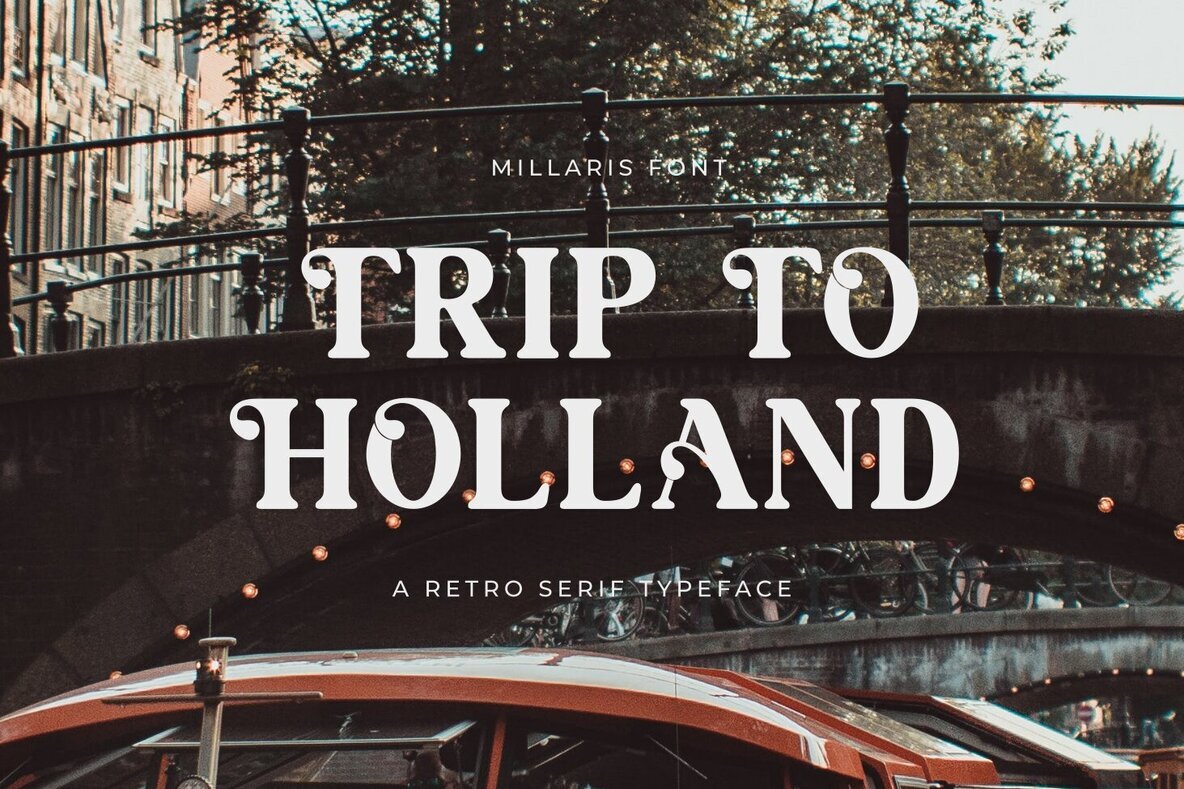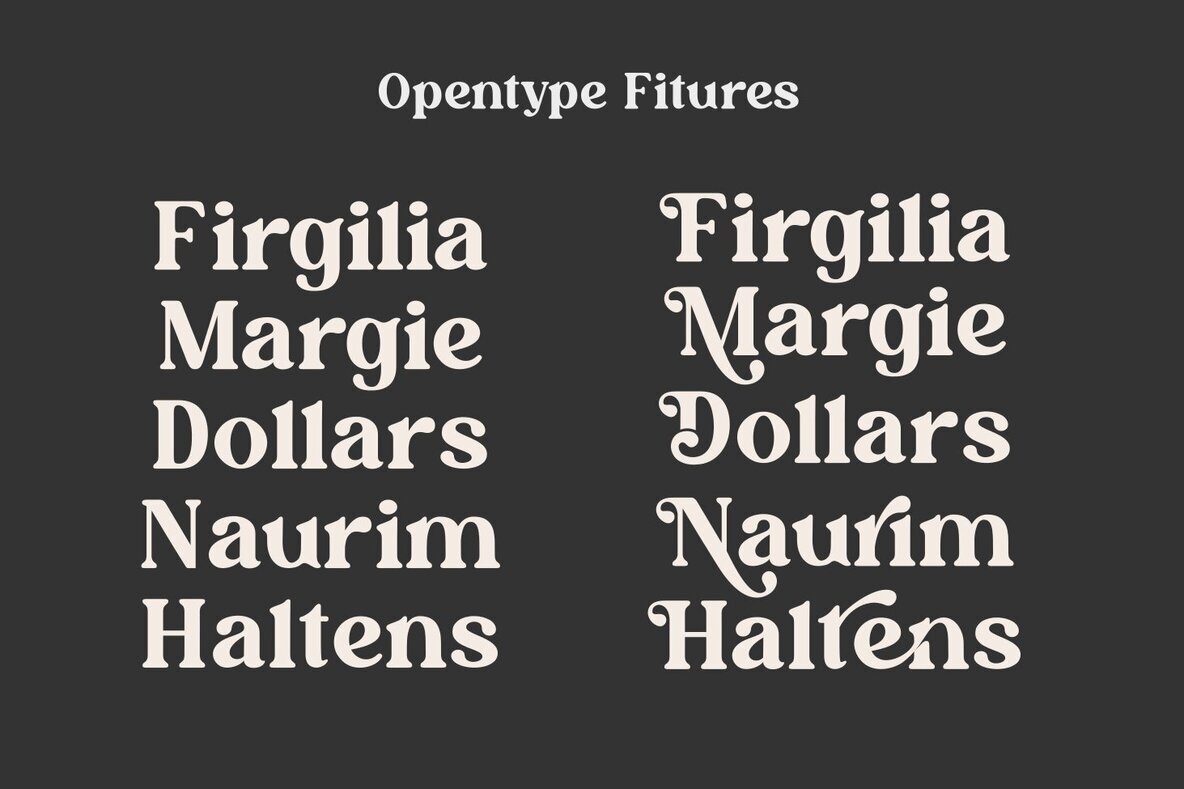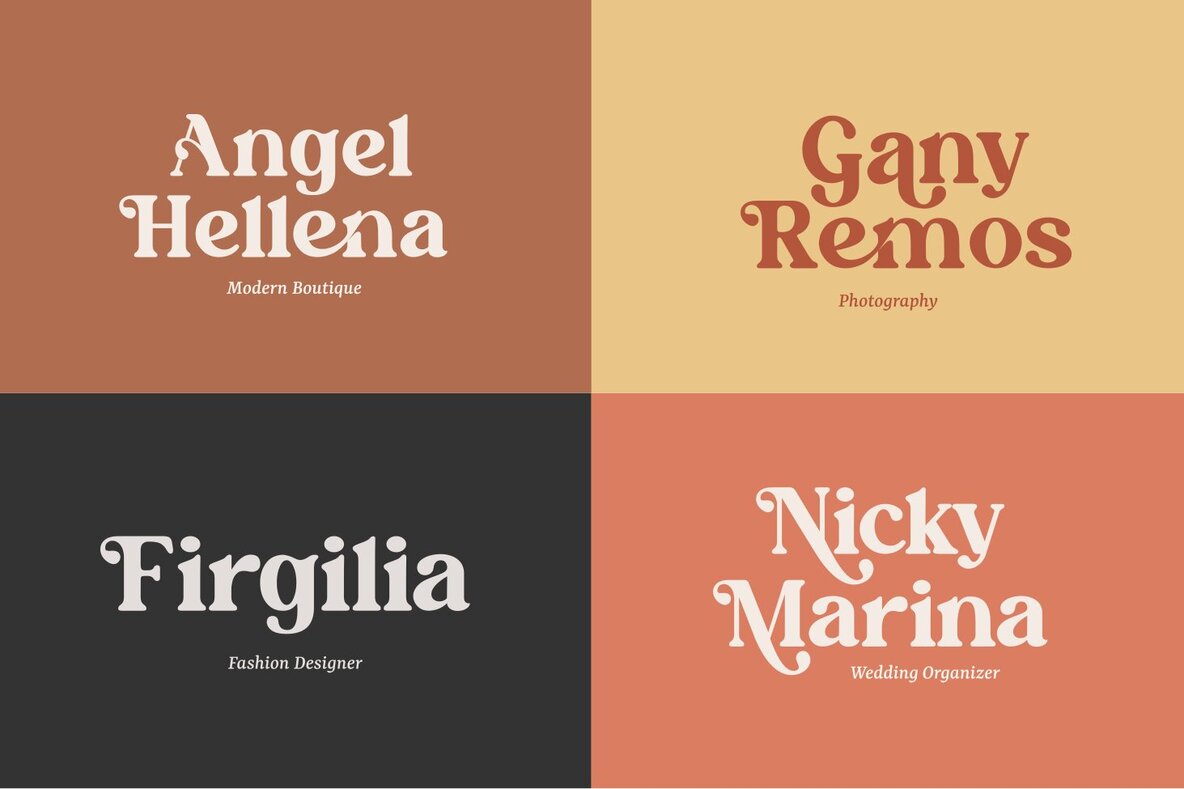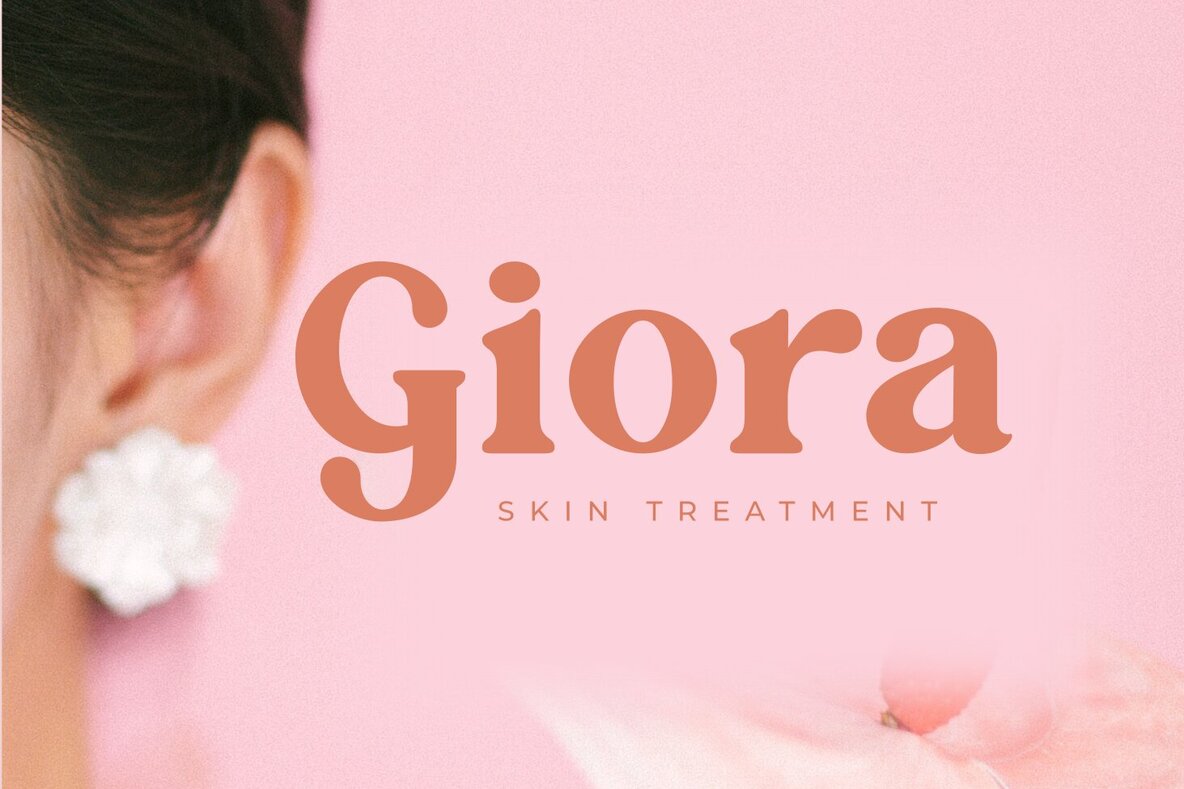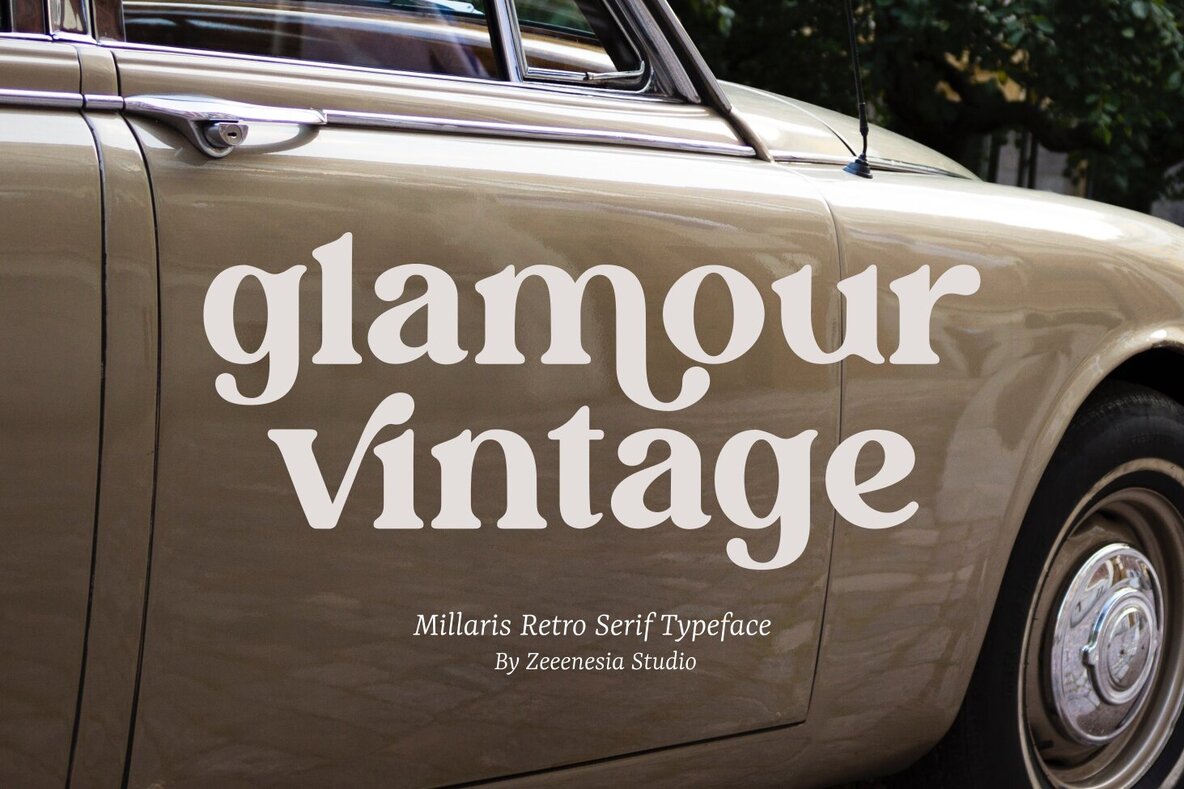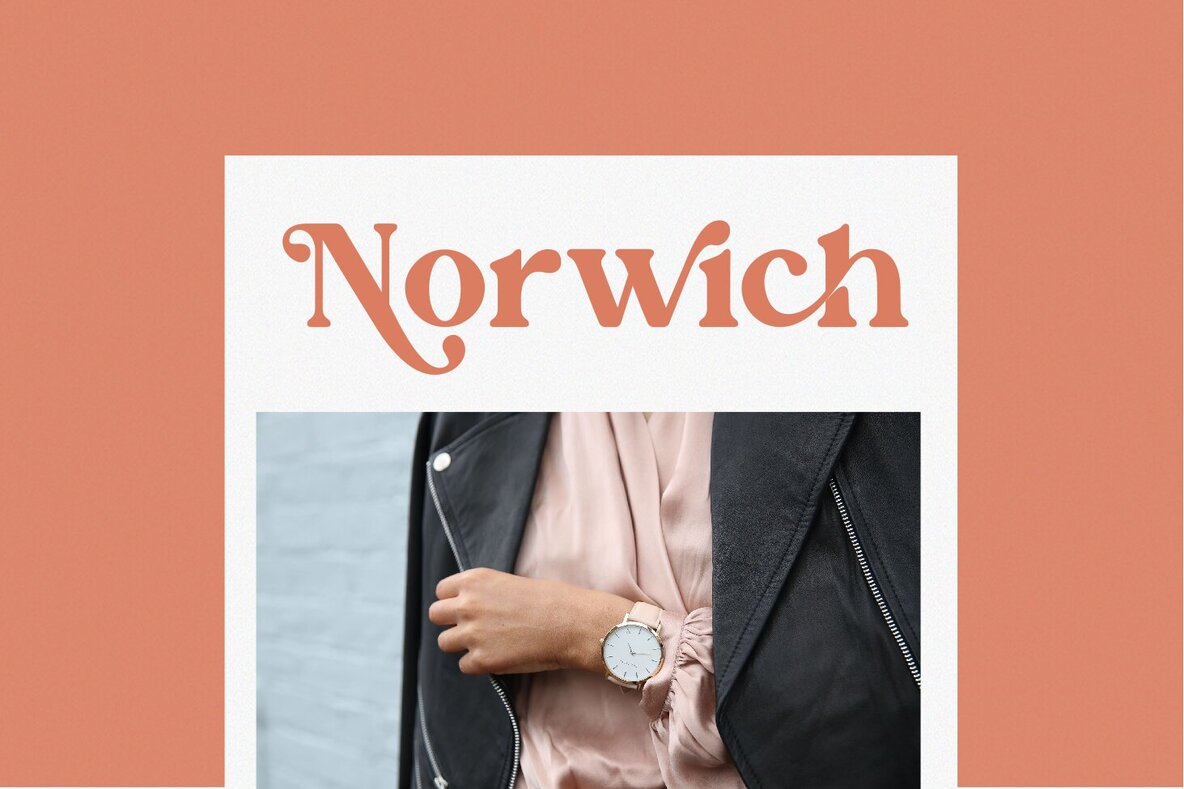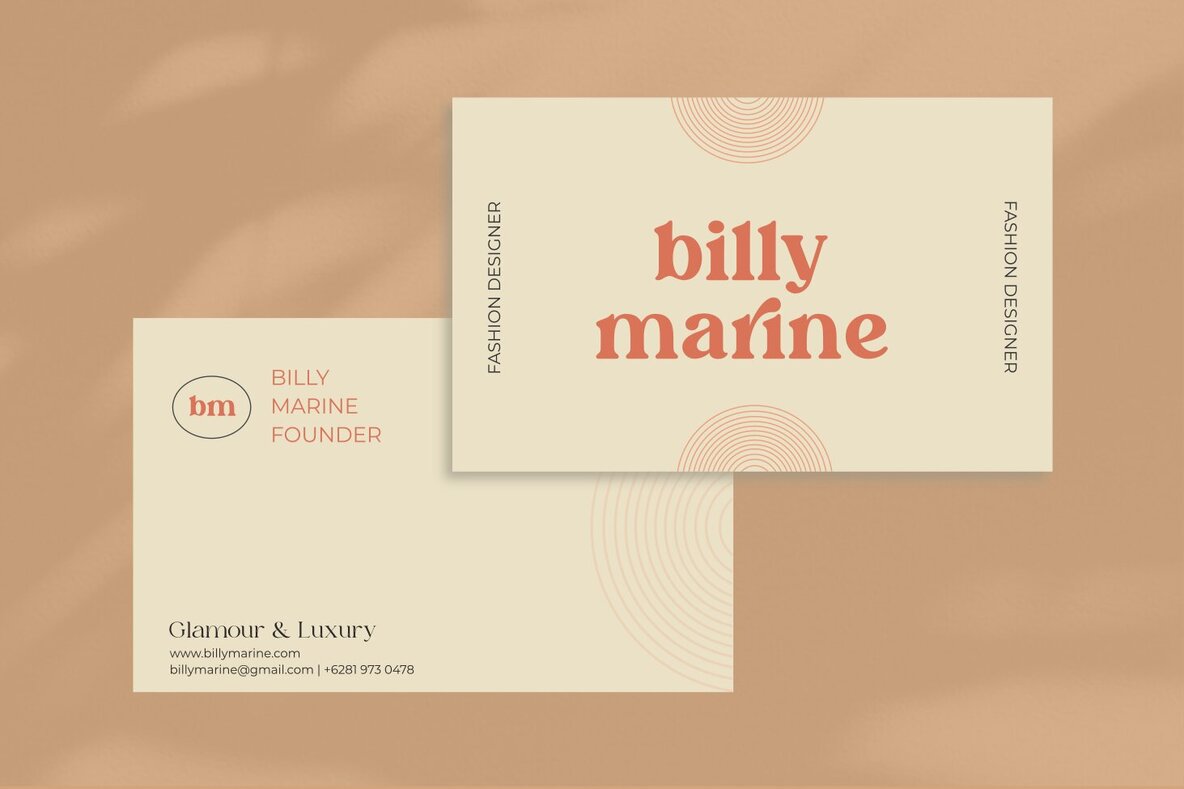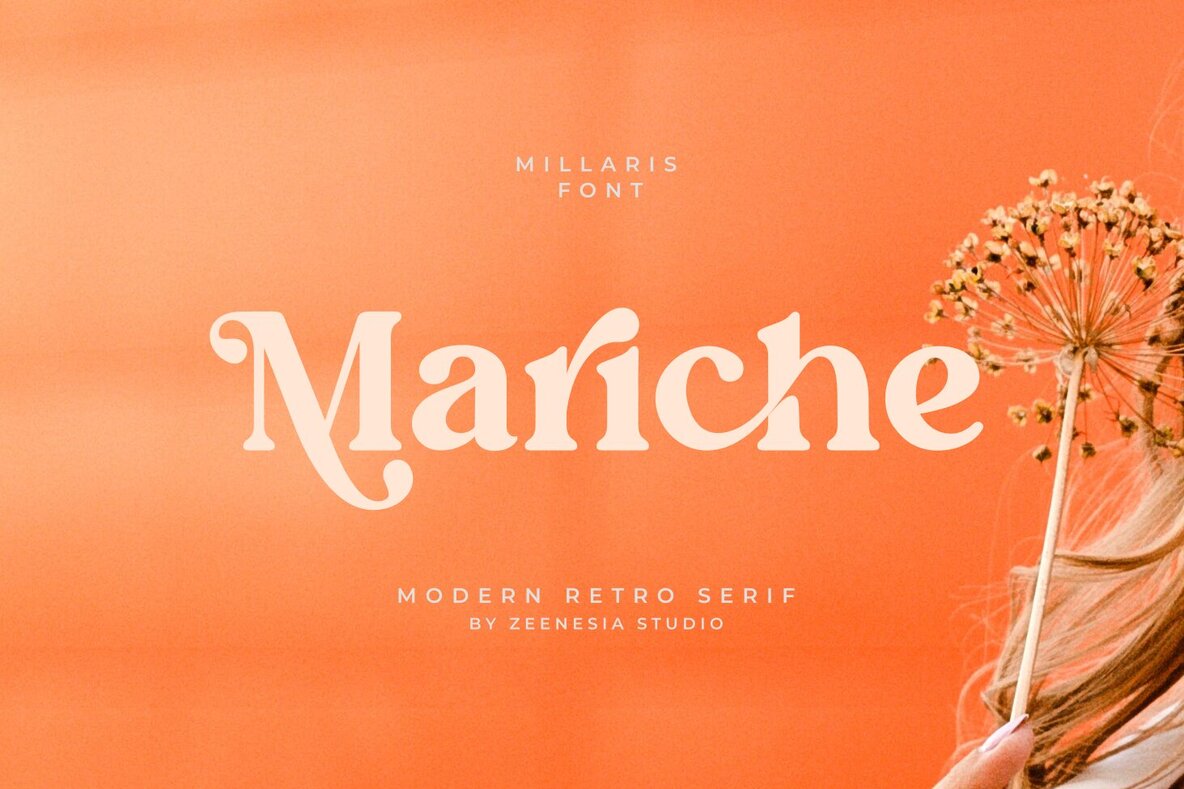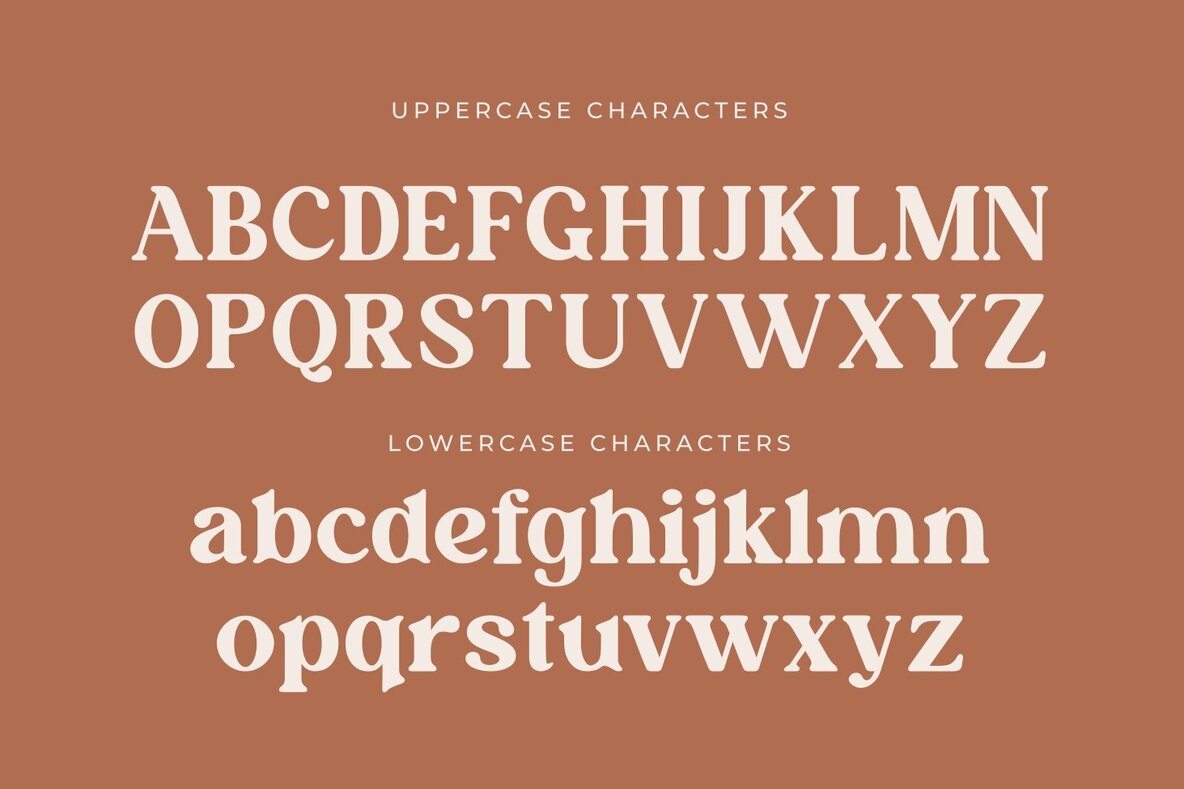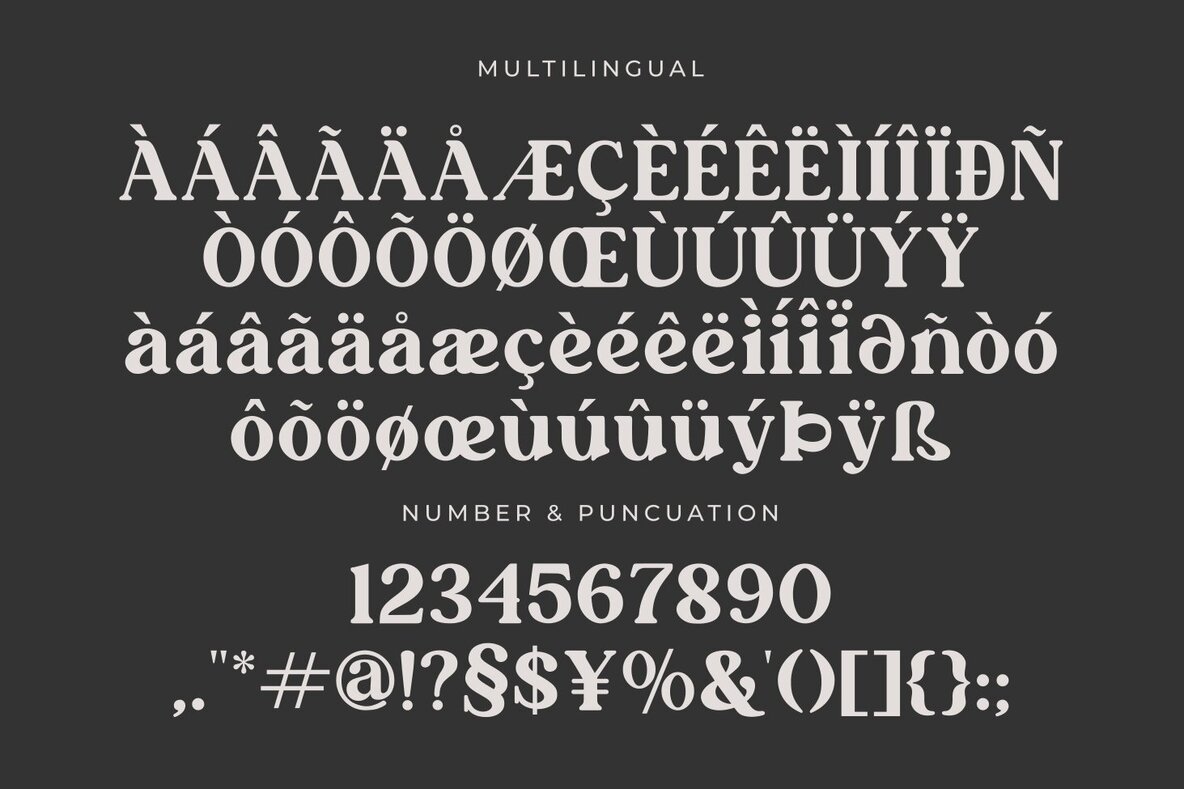
Millaris Font
Millaris Regular
Millaris is a distinctive serif font that seamlessly blends modern and retro elements. Its versatility makes it an excellent choice for a variety of applications, including advertising, branding, logotypes, packaging, titles, headlines, and editorial design. With an extensive range of alternate variants and naturally flowing ligatures, Millaris adds a touch of elegance and beauty to any project. We hope you enjoy using Millaris in your projects. Feel free to share your thoughts or feedback with us.Millaris: Versatile Modern and Retro Serif Font